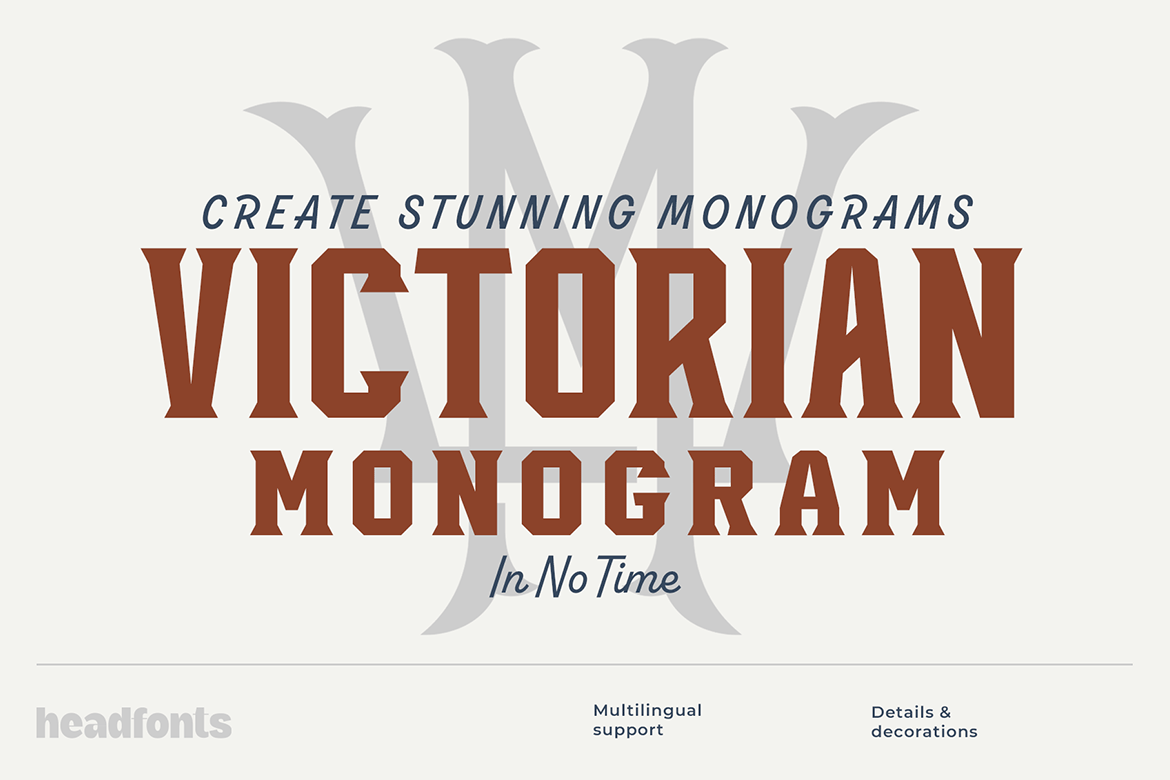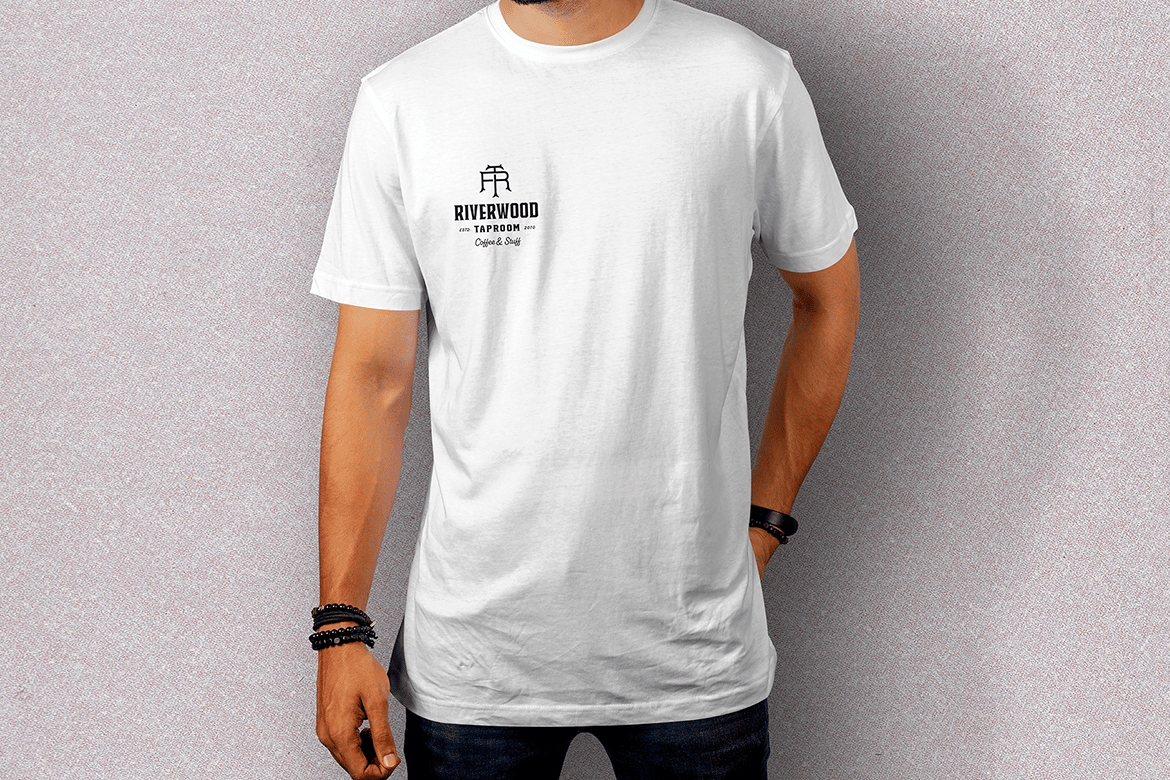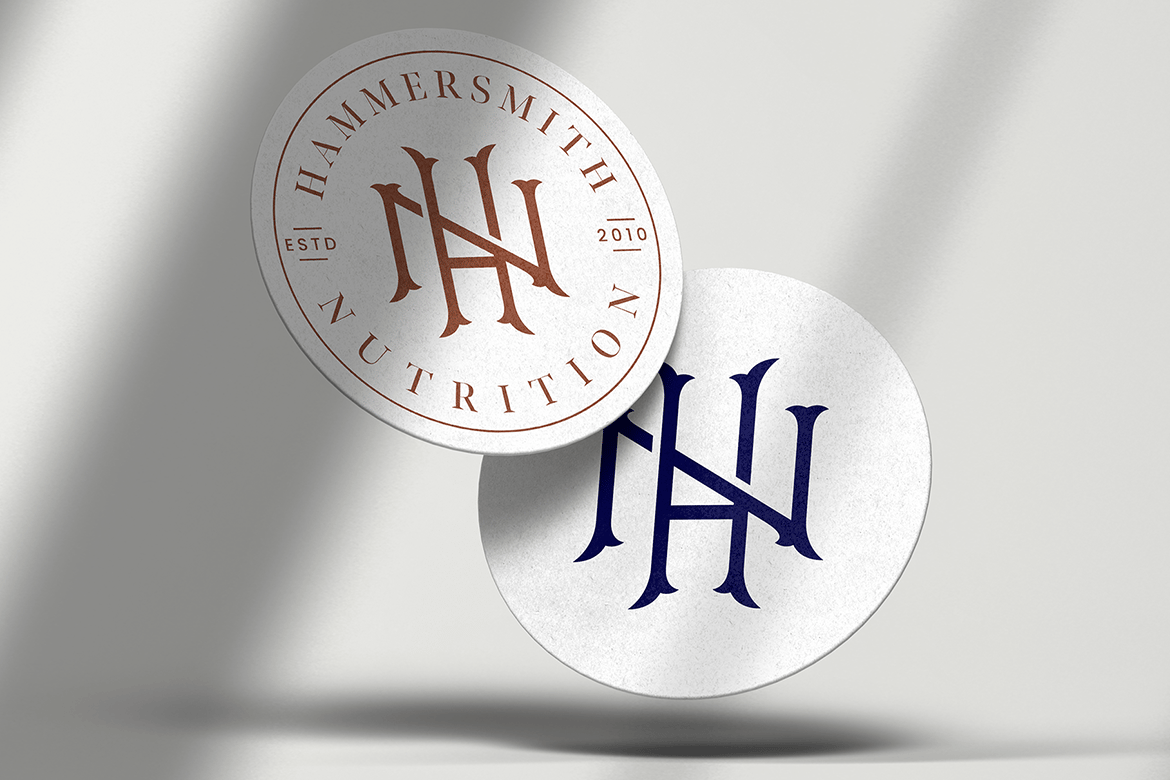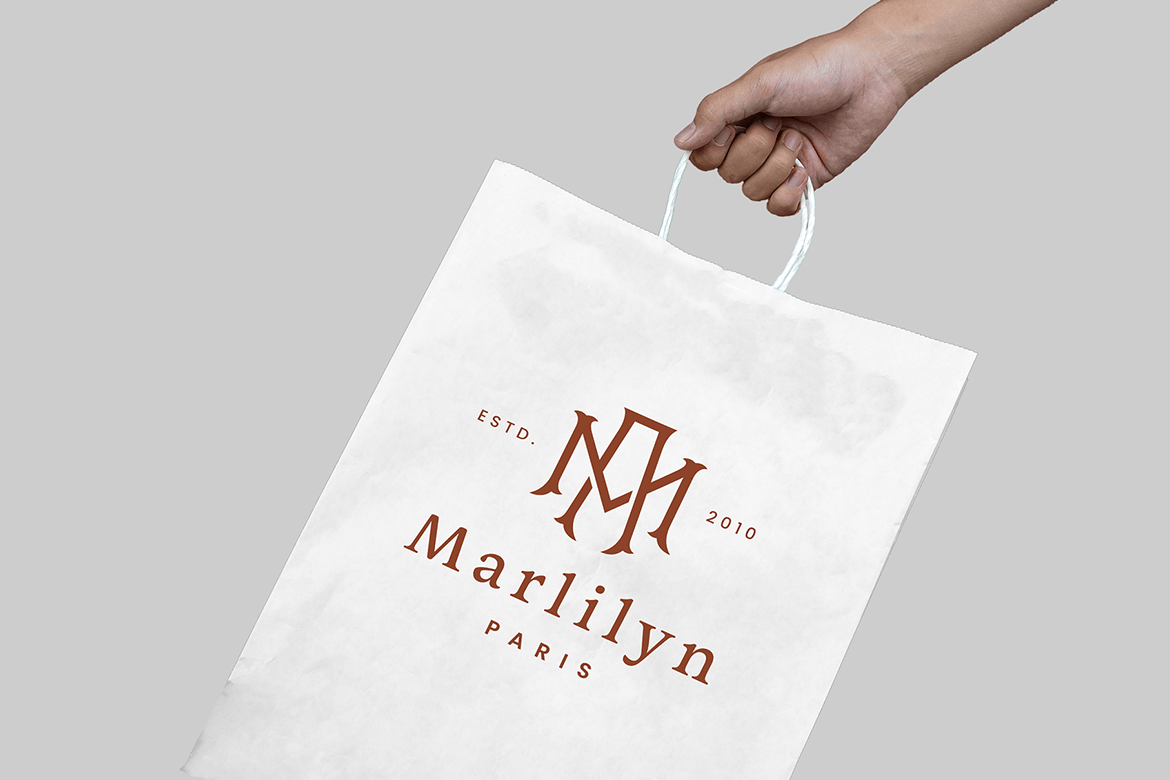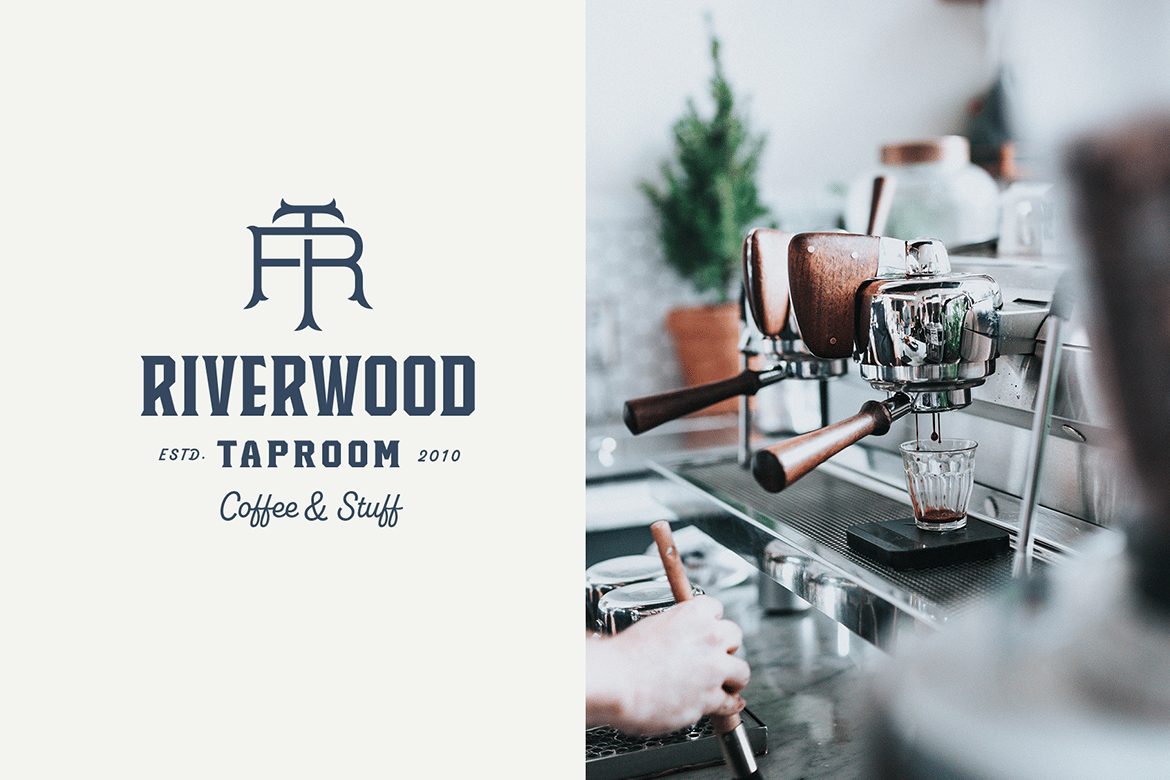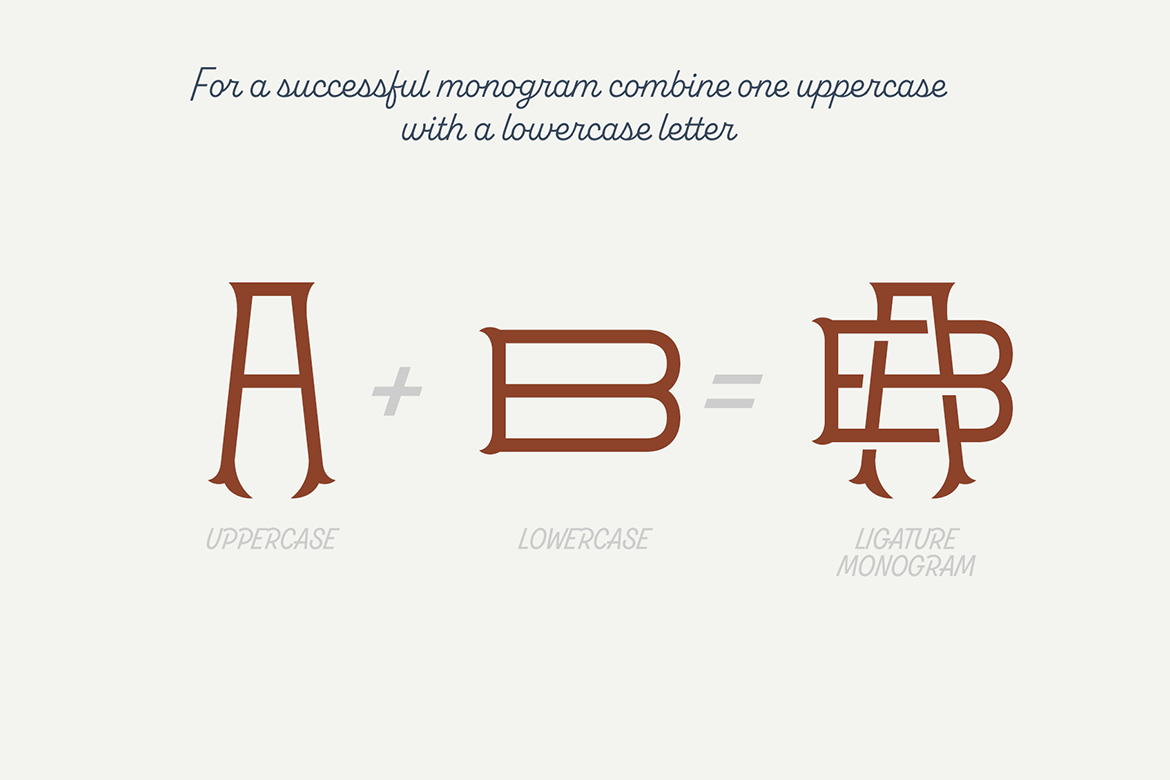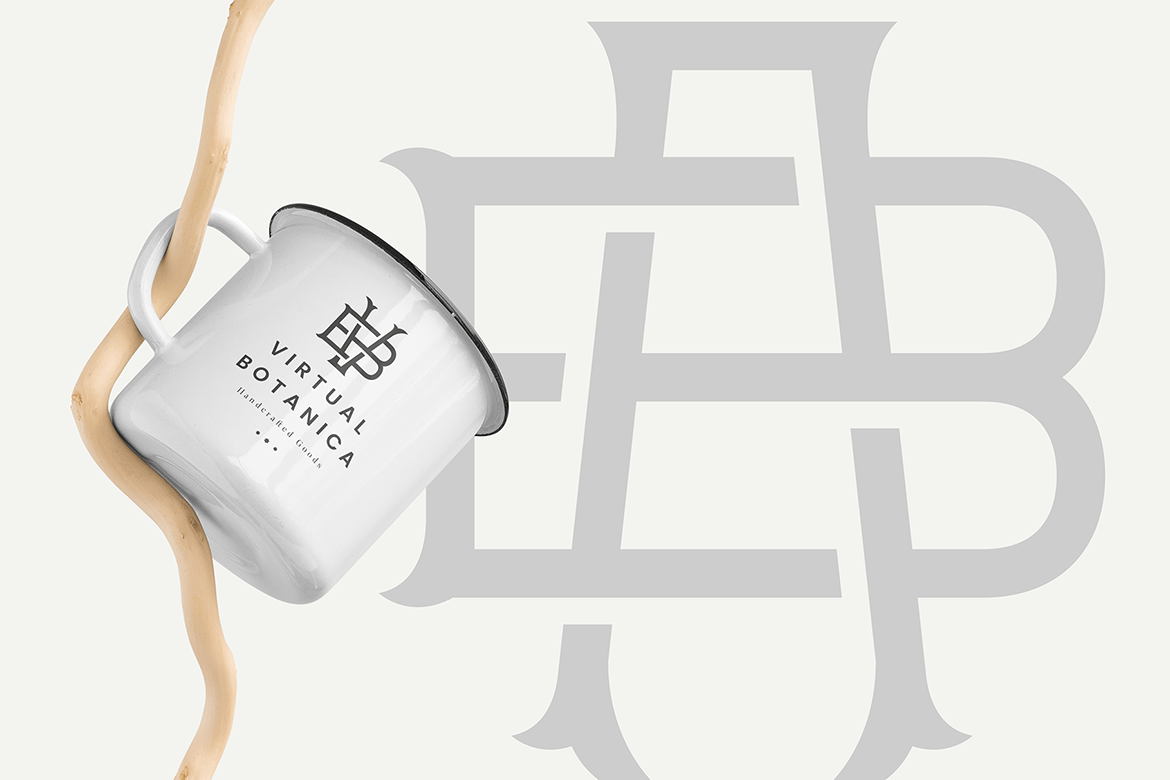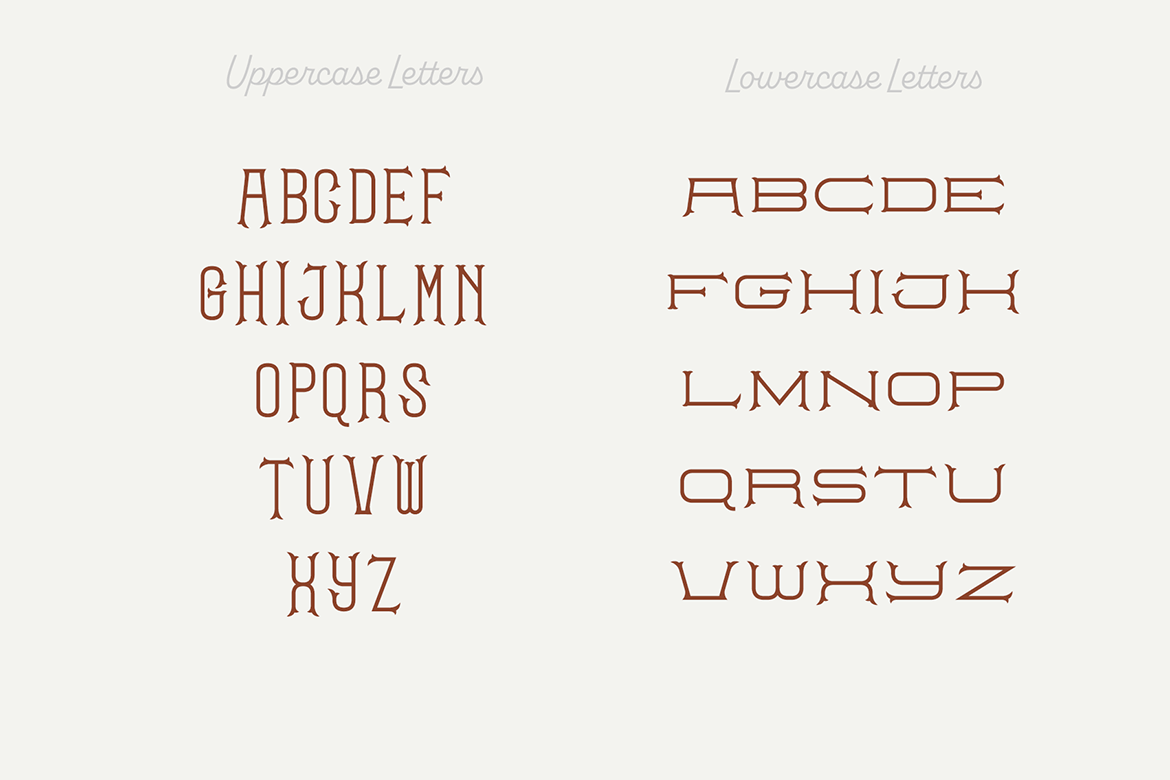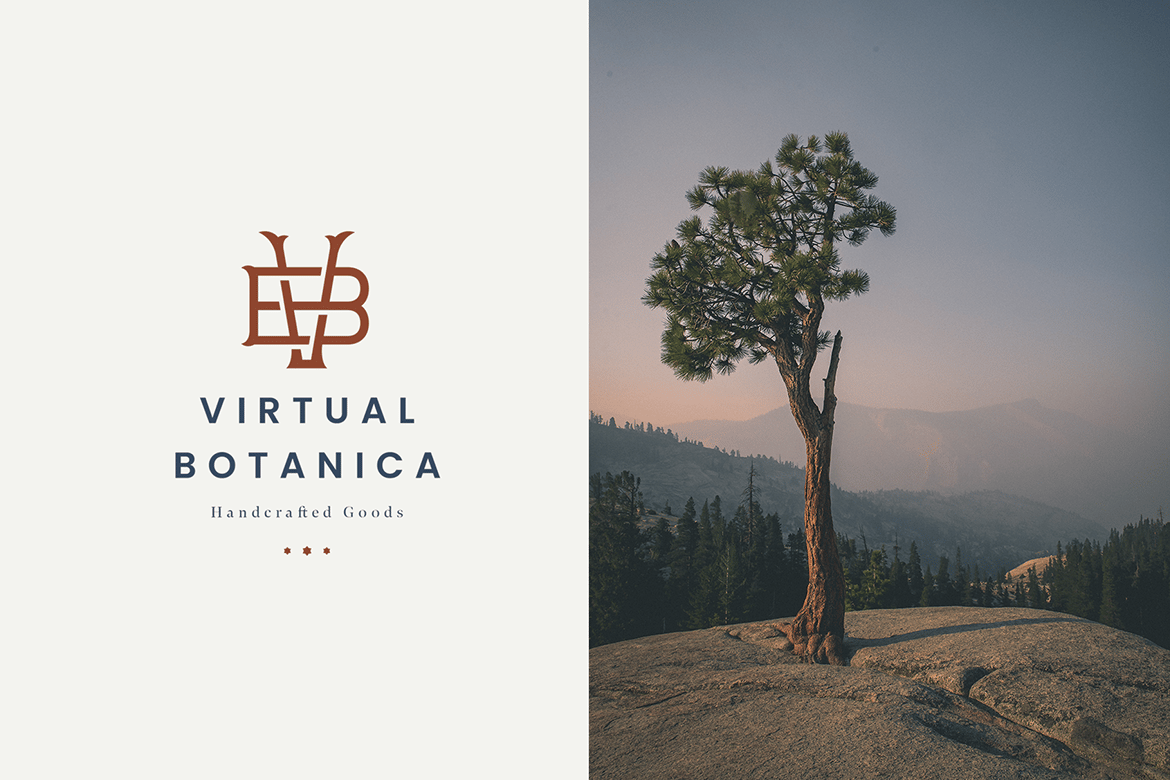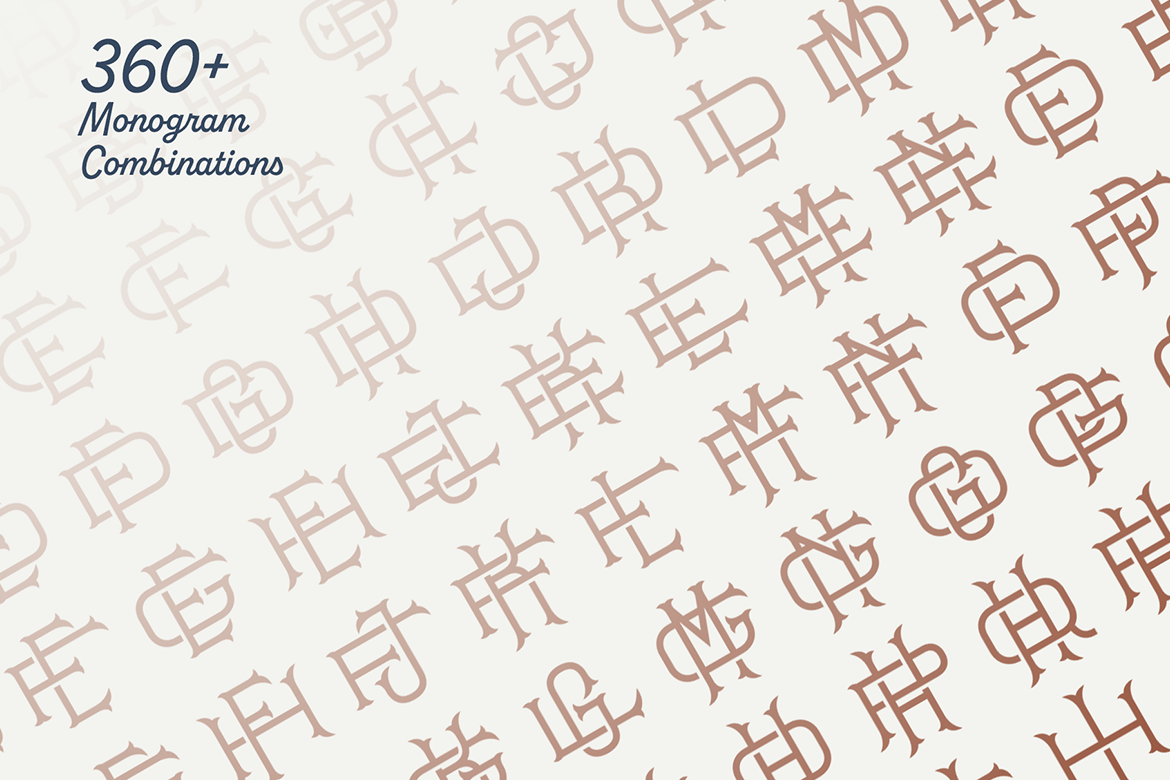
Victorian Monogram Creator Font
Happy to present the newest monogram font, The Victorian Monogram Creator Font! This font was specially designed for creating stunning monograms in no time. Victorian Monogram Creator Font, is a one-weight font, with victorian, decorative-inspired letters, and endless combinations. Each letter was designed to combine with the others easily and with great results. The uppercase letters are tall and narrow, while the lower uppercase letters are wider and short-bodied. To create your dream monogram, all you have to do is to choose an uppercase letter and a lower uppercase letter, place them on top of each other, adjust them to have the same center, and you will have an outstanding monogram. Yes, is that easy! Combining the font letters you will have 350+ exquisite monograms while saving a lot of time. The Victorian Monogram Creator Font is the perfect tool for creating timeless and effortless designs, such as monogram logos, badges, or lovely wedding invitations, just let your creativity break free!